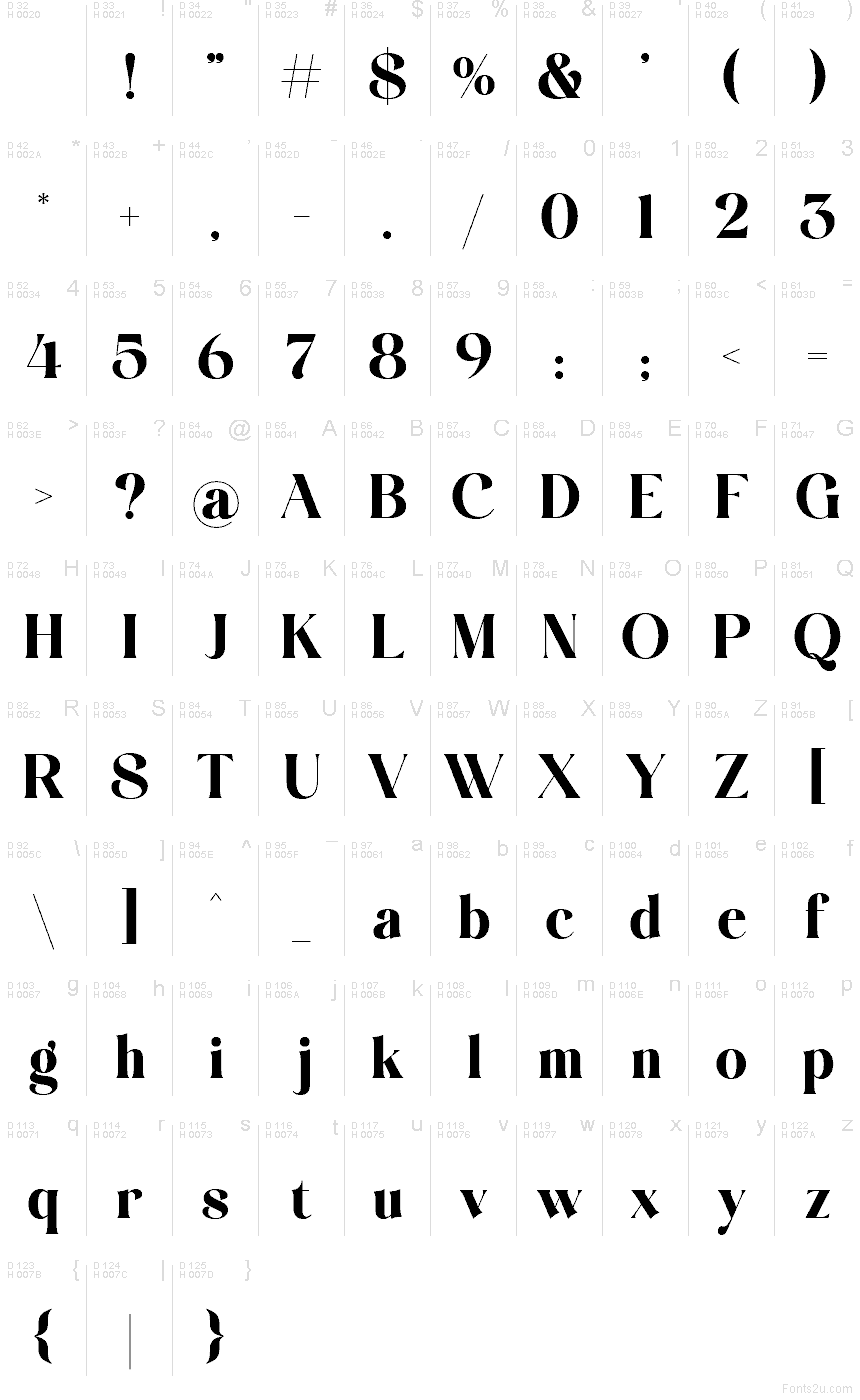
Hellovemy Regular
Hellovemy font by ToniStudio is a free serif typeface with a dramatic, inky presence that feels both modern and romantic. Its thick, sculpted strokes and sharply cut curves create a bold silhouette, while the tall, sweeping letterforms add a sense of poise and movement. The result is a serif that feels luxurious and editorial without ever becoming fussy or fragile.
Using Hellovemy, headlines and logos instantly gain a couture edge, making this free font a natural fit for fashion branding, beauty packaging, magazine covers, posters, wedding stationery, and social media graphics. It holds its own at larger sizes, where those lush shapes really breathe, and pairs beautifully with a clean geometric sans for supporting text.